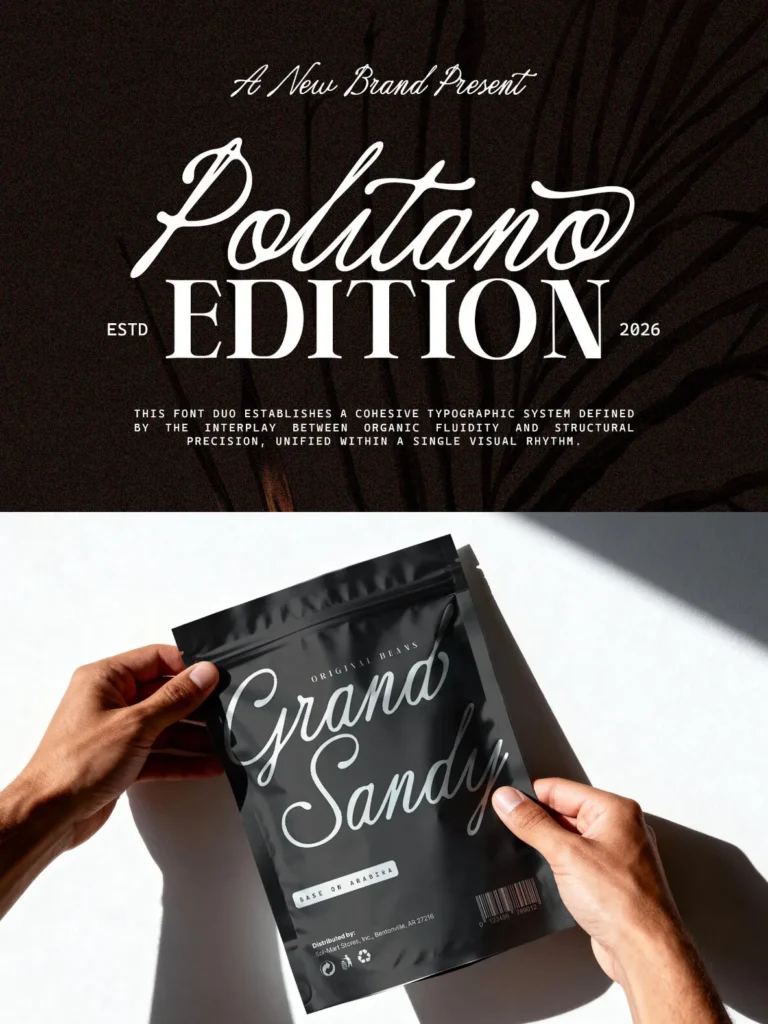
Politano Edition — Grace in Two Voices
Politano Edition is an elegant duo font that pairs a flowing, romantic handwriting style with a timeless vintage serif. The combination gives designers a refined typographic voice with warmth, charm, and a graceful sense of detail, suited to work that needs to feel personal without losing polish.
Use Politano Edition for branding, wedding stationery, packaging, editorial design, and social media. Its subtle curves and carefully designed alternates bring a handmade touch to layouts, while the serif style keeps the composition grounded and classic. The result is a versatile font pairing for designs that call for intimacy, elegance, and lasting appeal.